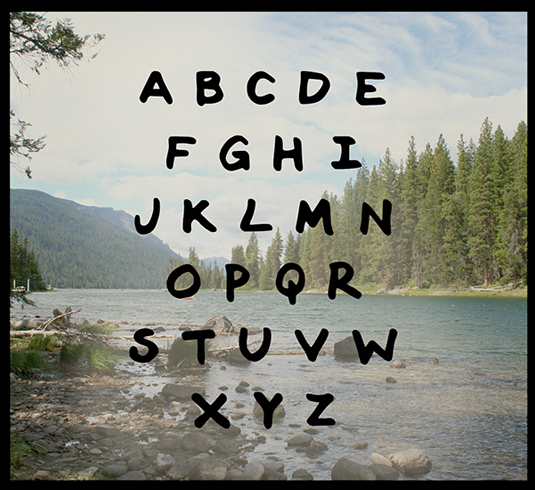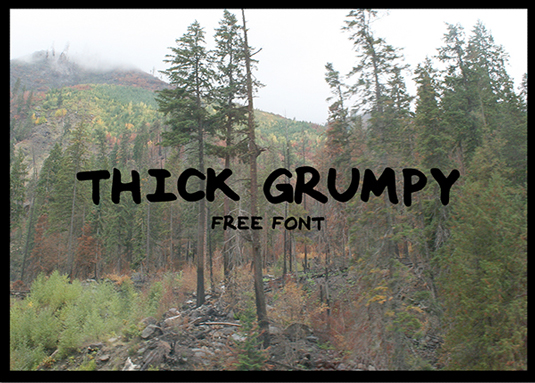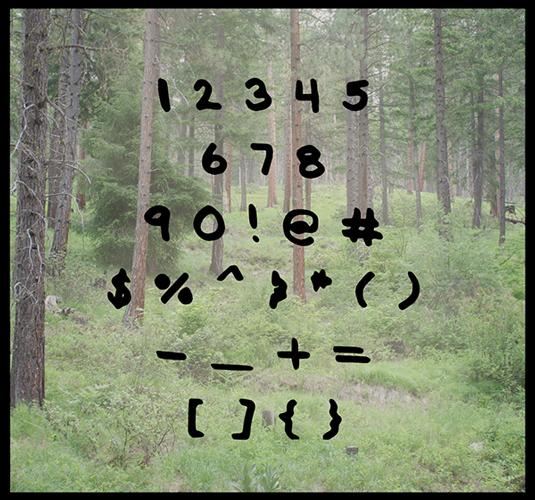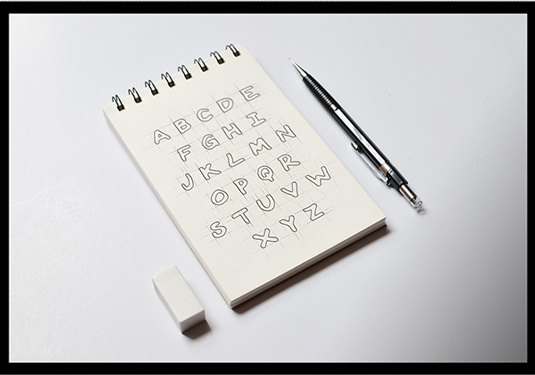
Font of the day: Thick Grumpy
Thick Grumpy by Kendra Aldrich
Kicking off this week's font of the day is Thick Grumpy, a hand-drawn font created by designer Kendra Aldrich. A bold design, Thick Grumpy is great for creating stand-out posters, headlines and much more.